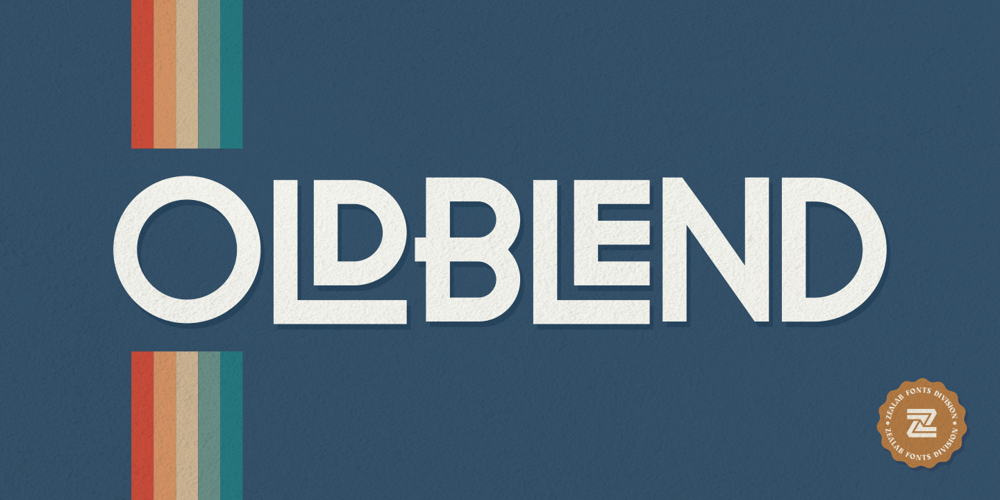
Oldblend
Oldblend font
Oldblend Font Family was designed by Reza Rasenda and published by Zealab Fonts Division. Oldblend contains 1 styles and family package options. Oldblend is a playful and elegant retro font and was designed as a display type for titles, headlines, and posters and will work well with any retro execution. It is characterized primarily by a modern look with straight shapes, but on closer view, you will notice its subtle connection to retro type design.Oldblend includes uppercase, lowercase, ligature and also Multiple Language SupportedI can’t wait to see what you guys will come up with with using this font!